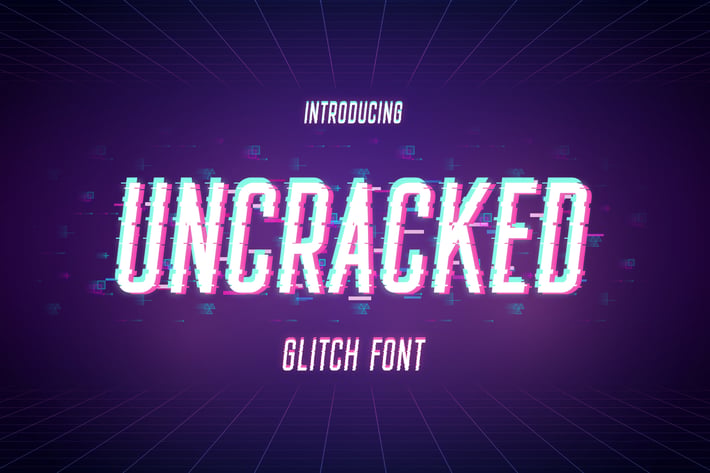
Uncracked - Glitch Font
Uncracked is a detailed glitch style font, ideal for gaming, music, movie posters, or other graphics.
- Alternate
– Ligature
– Multilingual